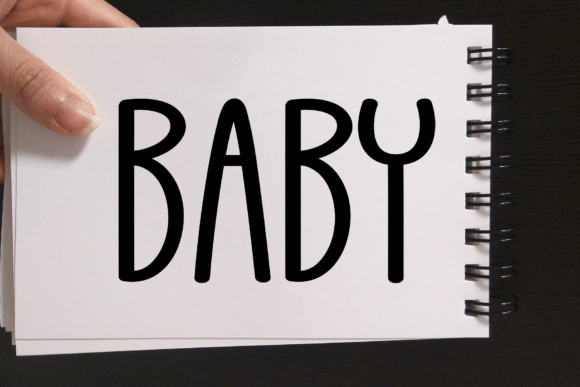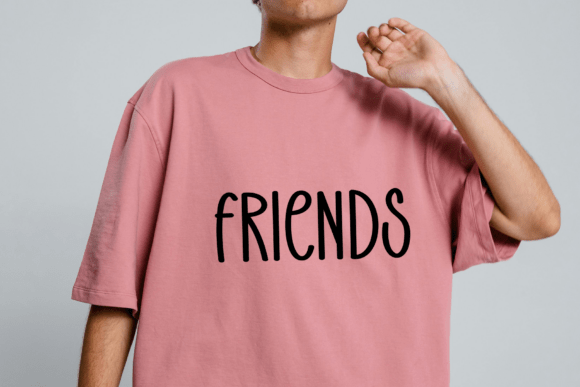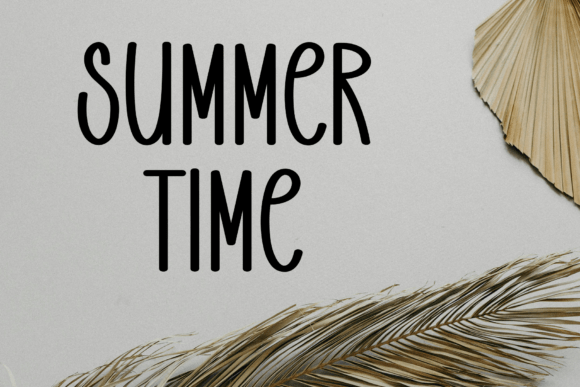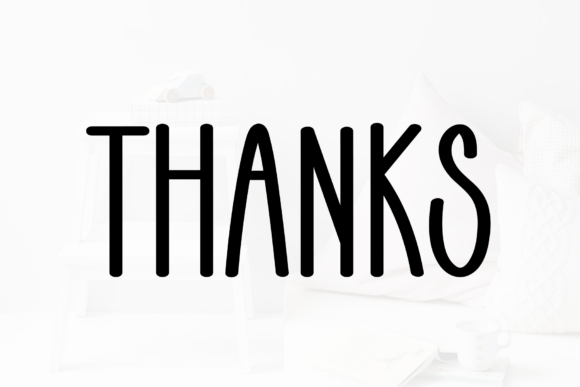
Introducing Artemisia Font: The Perfect Blend of Luxury and Casual Elegance
In the world of typography, fonts play a crucial role in defining the aesthetic and tone of a design. For designers and crafters looking for a font that exudes luxury and elegance while still maintaining a casual touch, Artemisia Font is an excellent choice. This handwritten font, which looks like it was drawn with a marker, offers a unique blend of sophistication and laid-back charm that can elevate any design project.
What is Artemisia Font?
Artemisia Font is a beautifully crafted handwritten font that mimics the look of marker-drawn letters. Its relaxed and sporty feel makes it an ideal choice for a wide range of design applications, from branding and logos to wedding supplies, greeting cards, and marketing promotions. The font’s versatility and stylish appearance have made it a popular choice among designers and crafters seeking to add a touch of elegance and sophistication to their work.
Key Features of Artemisia Font
- Handwritten with a marker feel: Artemisia Font boasts a unique, hand-drawn look that gives it a personal and approachable feel.
- Relaxed and sporty vibe: The font’s casual appearance makes it perfect for designs that require a laid-back yet stylish touch.
- Luxurious and elegant: Despite its casual feel, Artemisia Font exudes luxury and sophistication, making it suitable for high-end designs and branding.
- Versatile: This font can be used for a variety of design projects, including logos, wedding supplies, greeting cards, fashion lookbooks, and marketing promotions.
Use Cases for Artemisia Font
Artemisia Font’s versatility makes it an excellent choice for various design applications. Here are some of the ways you can use this beautiful font:
- Branding and Logos: Create a lasting impression with a unique and stylish logo that reflects your brand’s personality.
- Wedding Supplies: Add a touch of elegance and sophistication to your wedding designs, including invitations, programs, and decorations.
- Greeting Cards: Create beautiful and heartfelt greeting cards for special occasions, such as birthdays, anniversaries, and holidays.
- Fashion Lookbooks: Elevate your fashion designs with a stylish and luxurious font that showcases your brand’s aesthetic.
- Marketing Promotions: Use Artemisia Font to create eye-catching marketing materials, such as brochures, flyers, and social media graphics.
Why Choose Artemisia Font?
With so many fonts available, why choose Artemisia Font for your design projects? Here are a few reasons why this font stands out:
- Unique and distinctive: Artemisia Font offers a fresh and unique look that sets it apart from other fonts.
- Elegant and sophisticated: The font’s luxurious feel makes it perfect for high-end designs and branding.
- Casual and approachable: Despite its elegance, Artemisia Font remains casual and approachable, making it suitable for a wide range of design applications.
- Easy to read: The font’s clear and legible design ensures that your message is conveyed effectively.
Artemisia Font is a versatile and stylish handwritten font that offers a perfect blend of luxury and casual elegance. Its unique marker-drawn look, relaxed and sporty feel, and elegant appearance make it an excellent choice for designers and crafters seeking to elevate their design projects. Whether you’re creating branding materials, wedding supplies, greeting cards, or marketing promotions, Artemisia Font is sure to impress. So why not give it a try and experience the difference it can make in your designs?